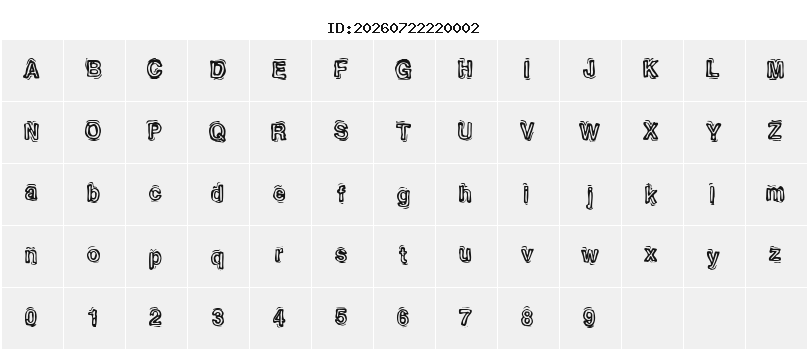
About Motherlode Stripped AOE.ttf
Motherlode Stripped AOE.ttf is a modern, elegant sans-serif font designed for ultimate readability and visual harmony. Perfect for branding, headlines, web design, and print materials.